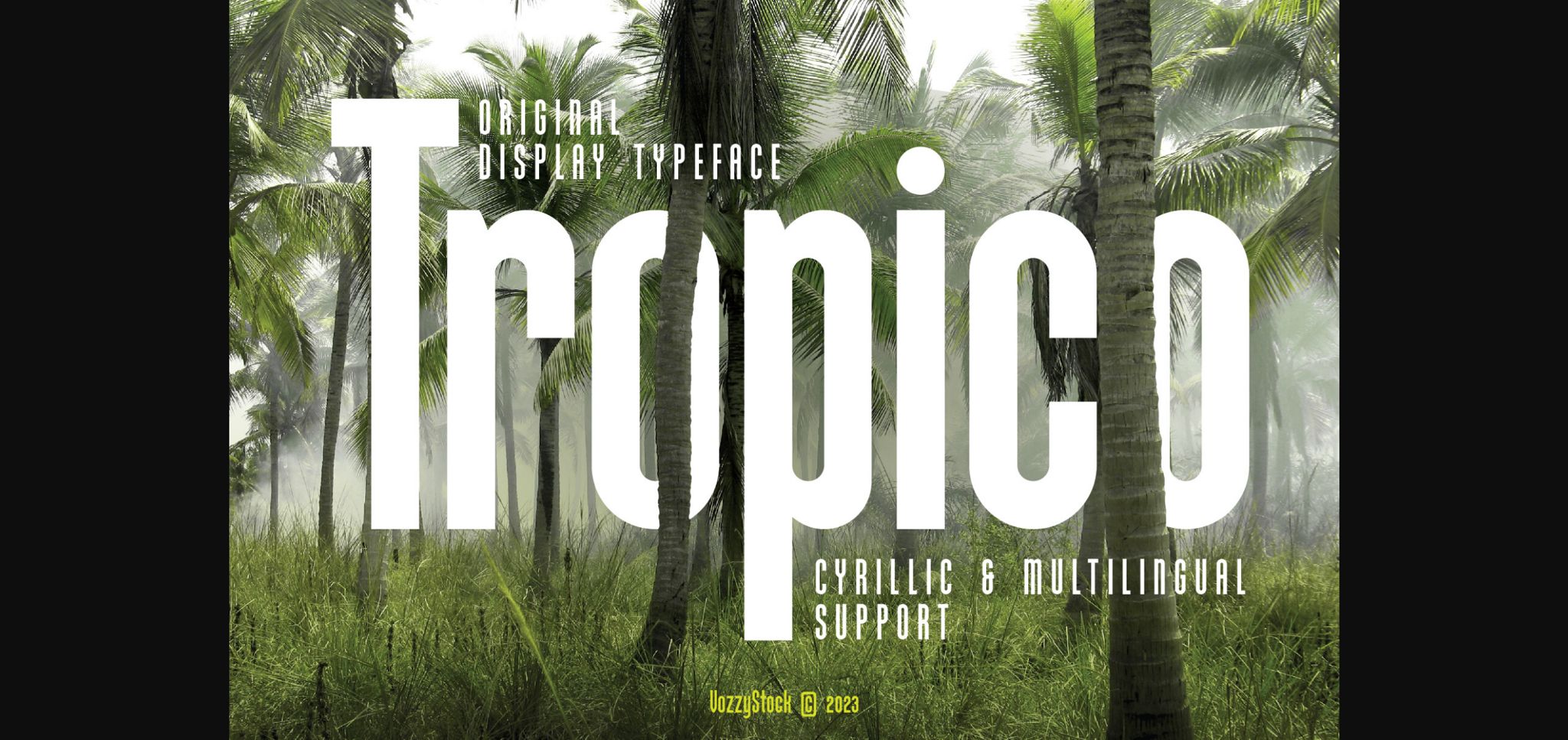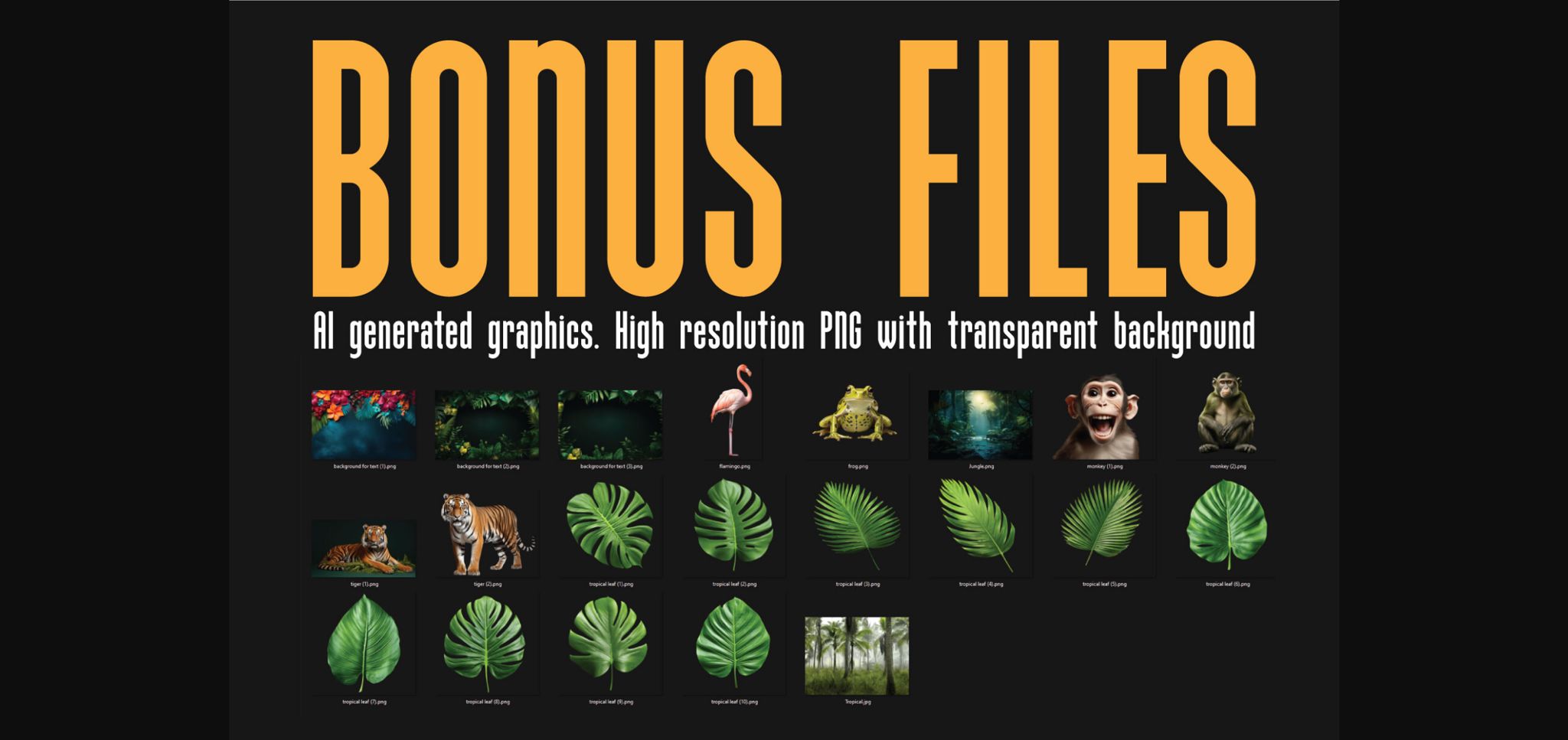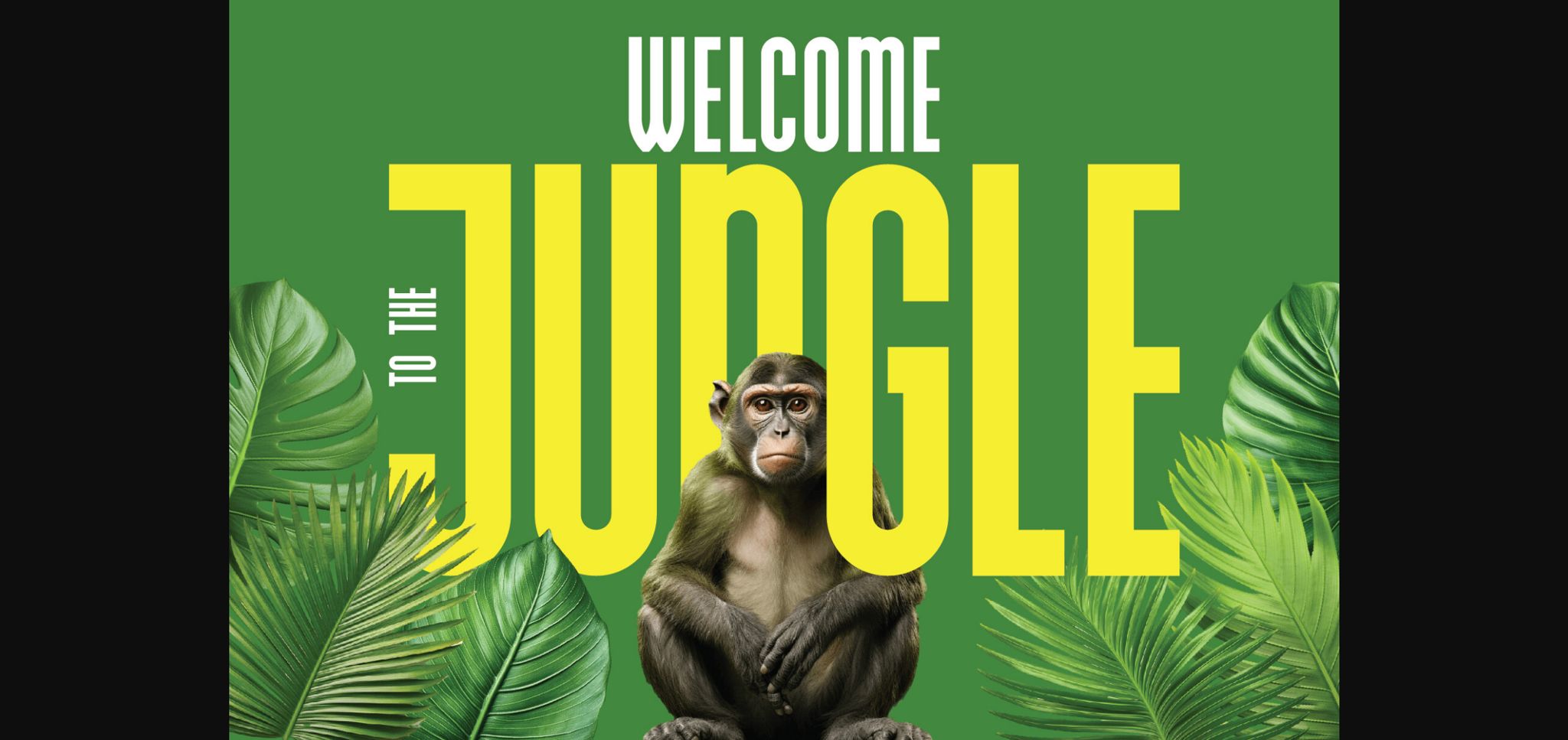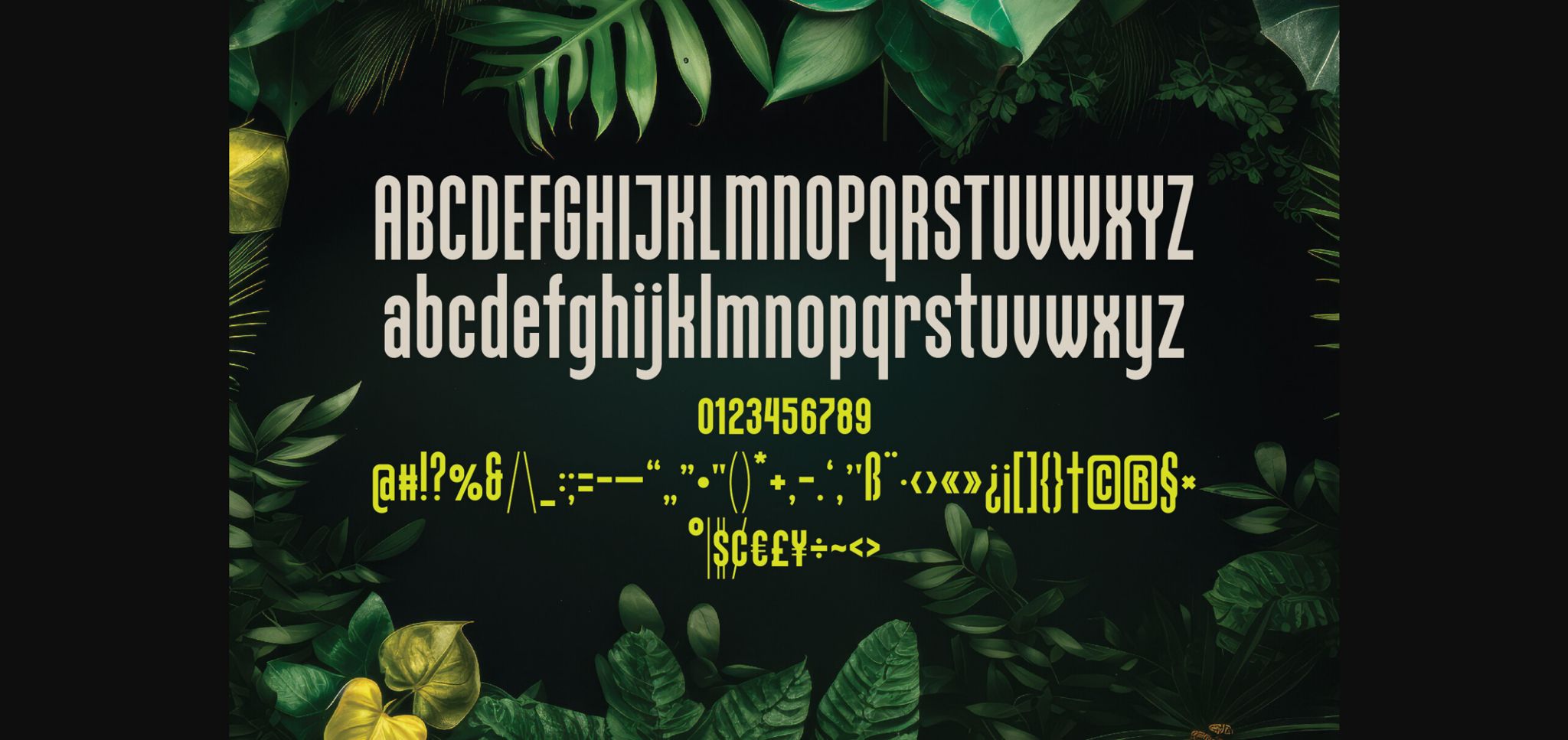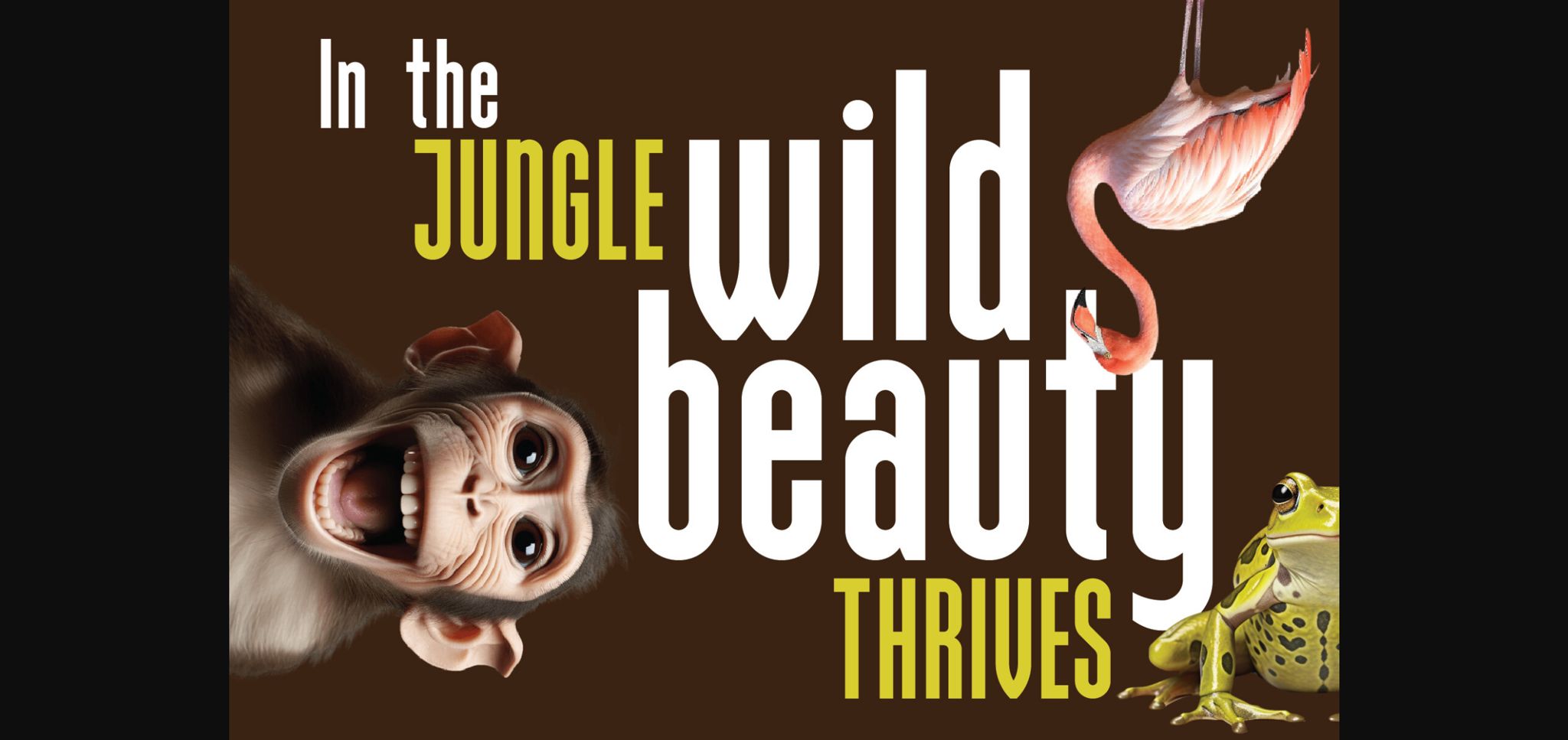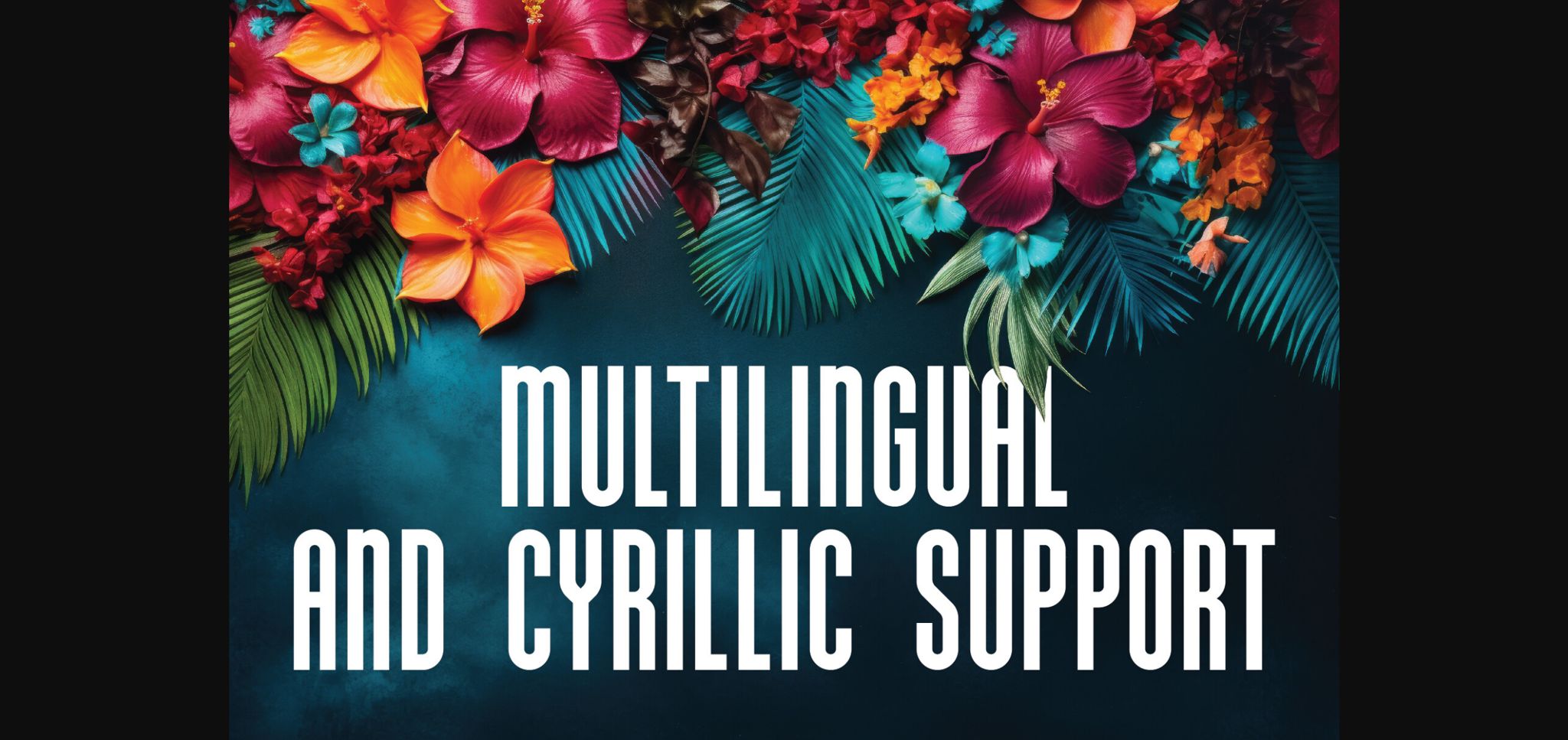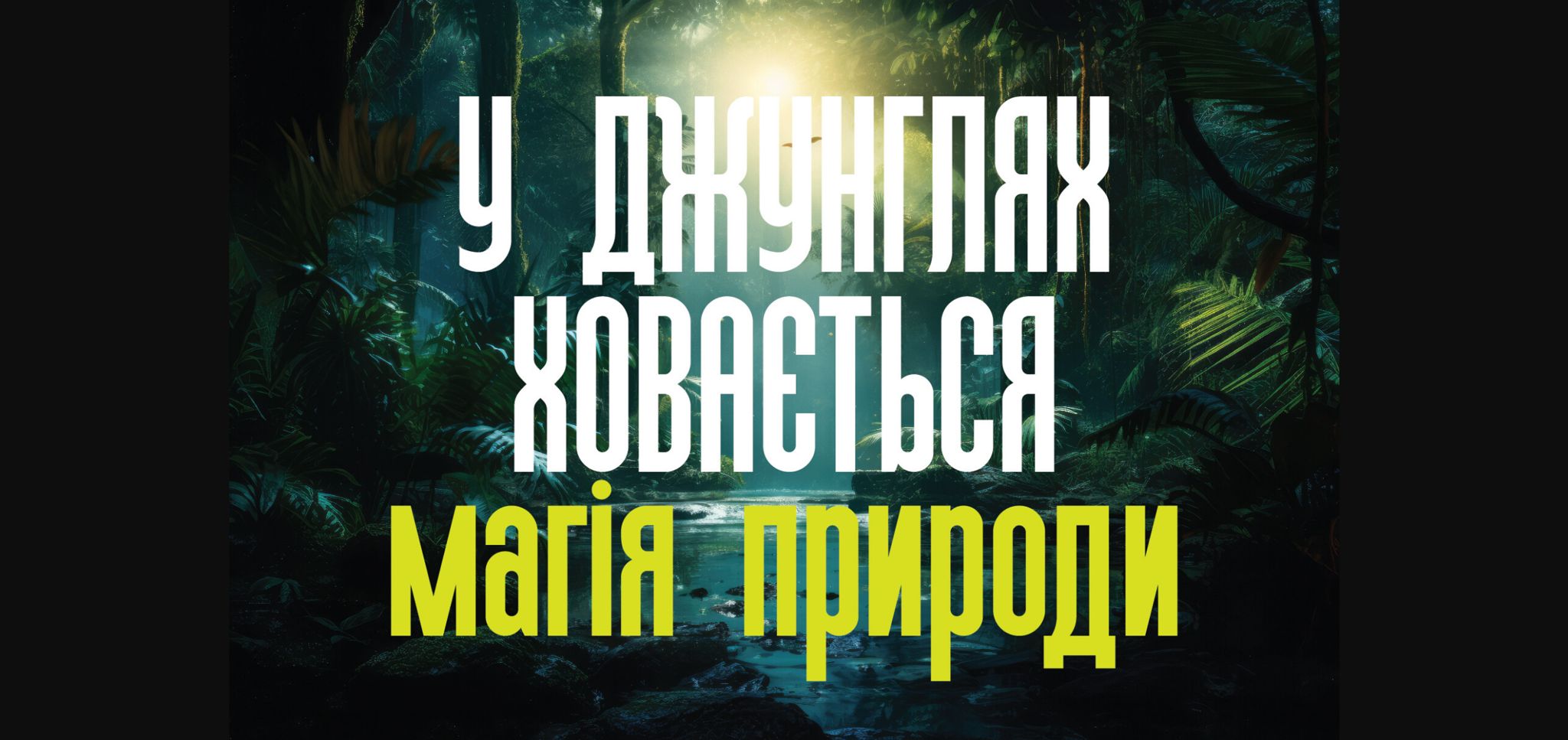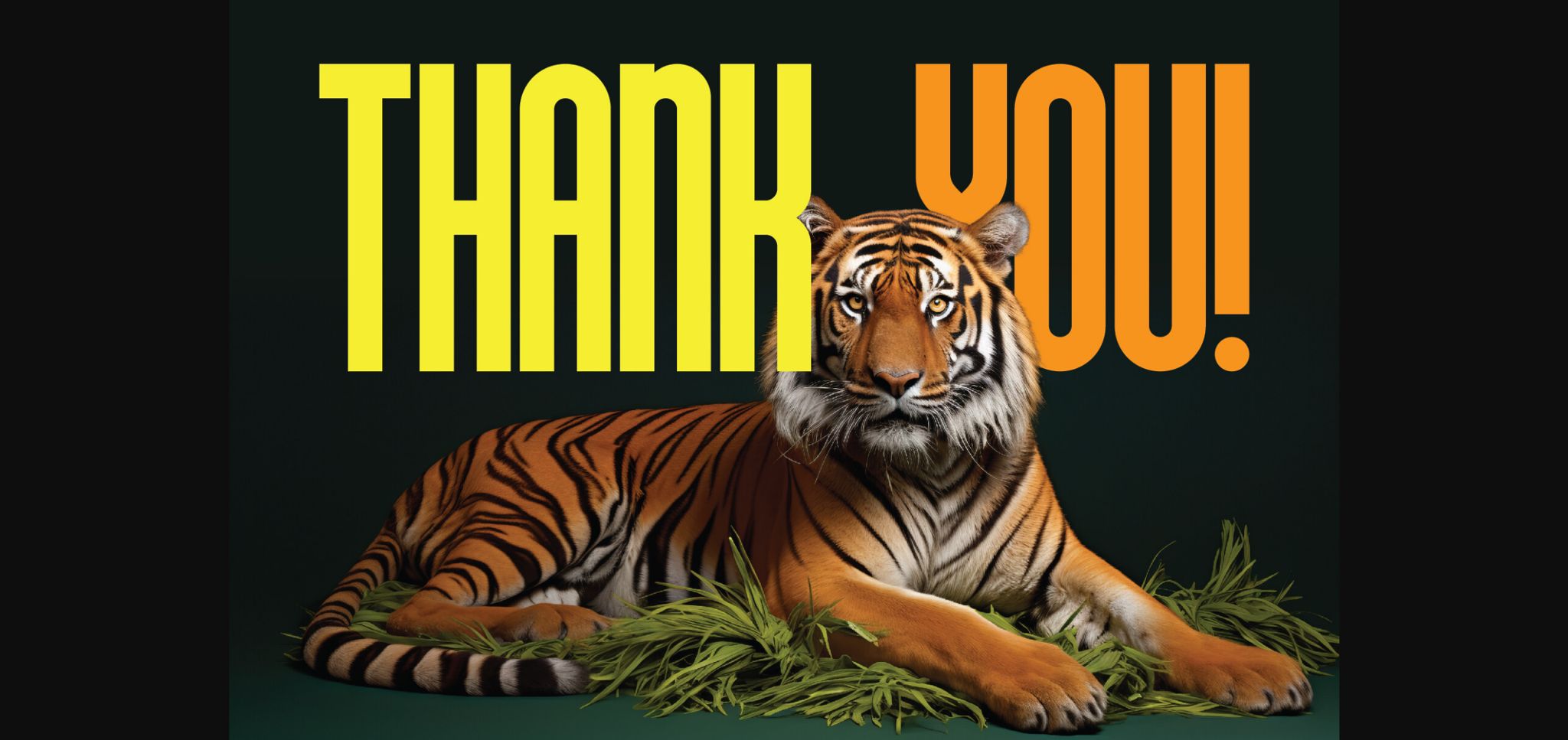
Tropico Font
About Tropico Font
Introducing Tropico, an elegant and clean typeface with a slim and slightly elongated design. Tropico is a sans-serif font, perfect for projects that require a refined and modern look. It features both uppercase and lowercase letters, along with numerals and additional symbols, making it versatile for various design needs.